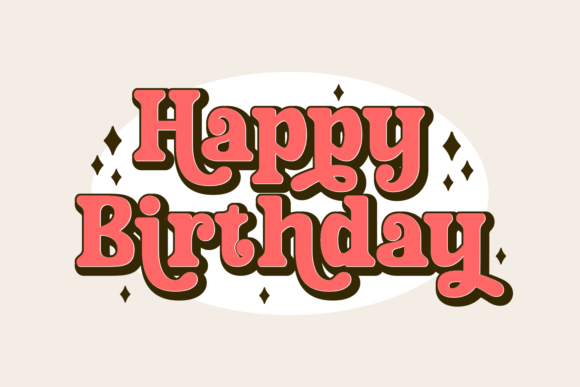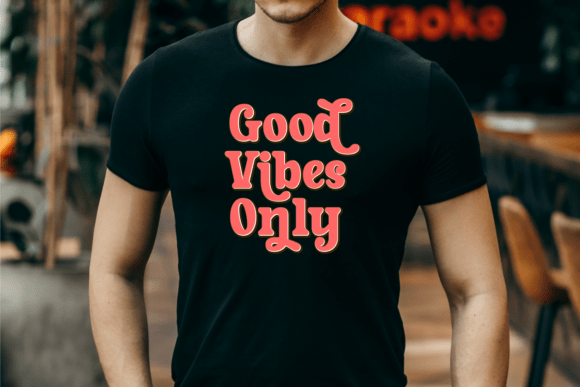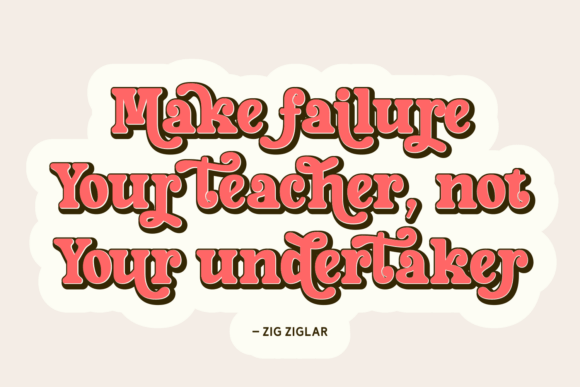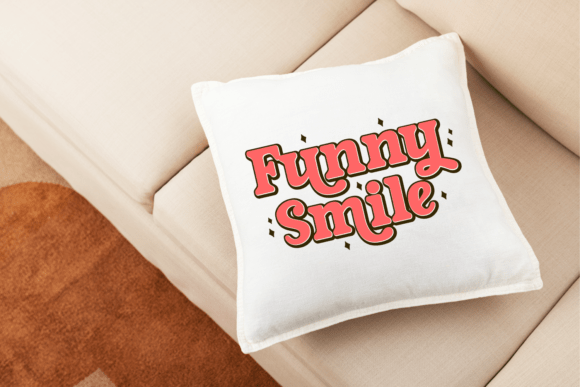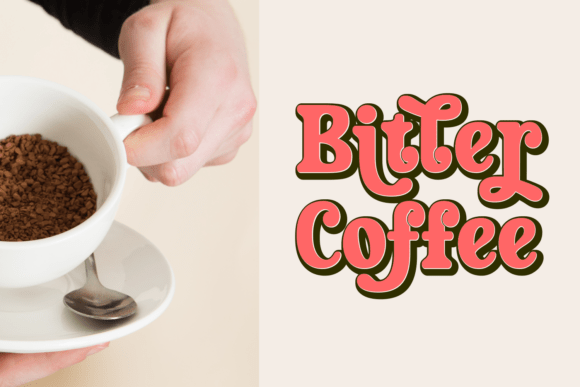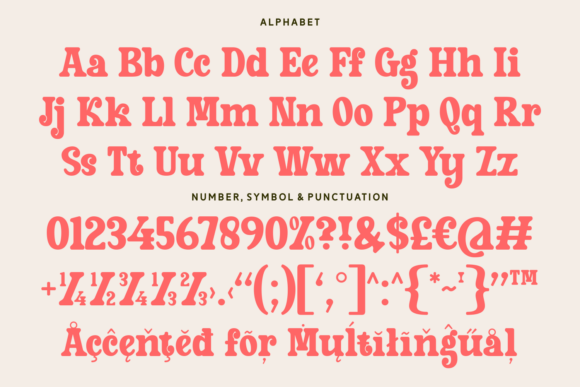
Introduction to Retro Fighter Font
Unveiling Retro Fighter Display Fonts – a harmonious fusion of time-honored allure and modern refinement.
This font family pays homage to the retro aesthetic, delivering visually captivating typography that adds a vintage flair to any design Each character is individually hand-drawn, adding a layer of bespoke, artisan charm.
Key Features of Retro Fighter Font
Why Choose Retro Fighter Font?
Retro Fighter Font offers exceptional quality and versatility, making it a valuable addition to your design toolkit. Whether you’re creating for personal projects or commercial use, Retro Fighter Font delivers professional results.